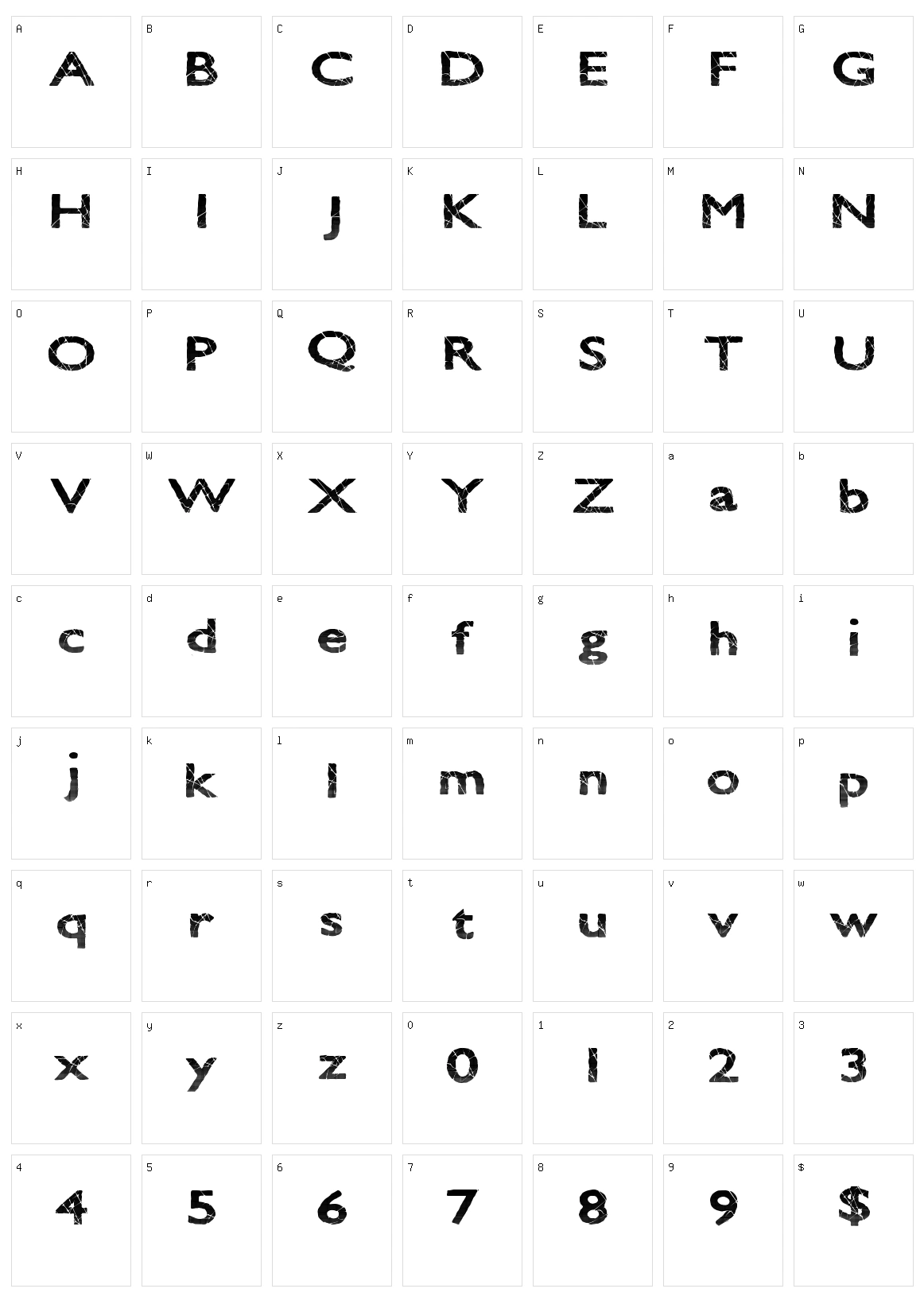
The free font Stoned Heights is carefully designed by Xerographer Fonts, showcasing a thoughtful balance of creativity and usability and falls under the Eroded font style. When you download the ZIP file, it contains only 141.28 KB of font files, making it lightweight and quick to download. Please review the license details below to understand permitted usage and distribution rights. If license information is not available, we recommend using this font for personal projects only or contacting the author directly for commercial usage permissions.